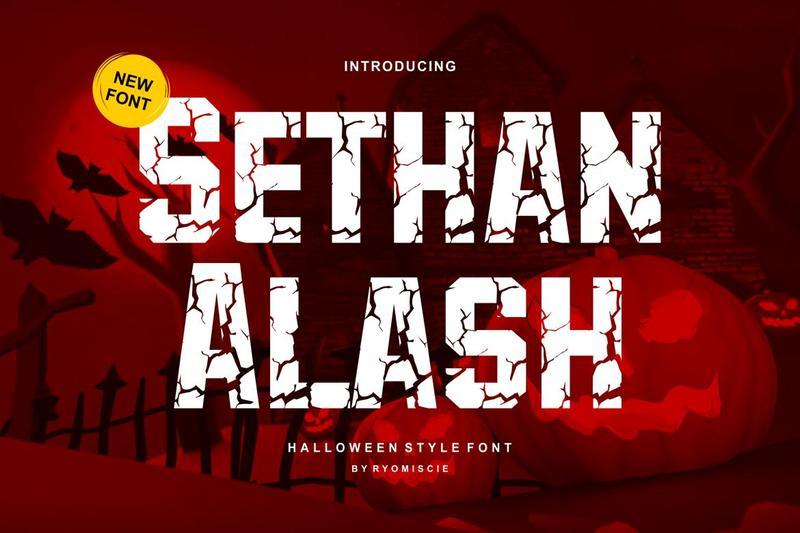
Sethan Alash – Halloween Style Font F4UJVC2
Introducing our new product **Sethan Alash** – Halloween Style Font
**Sethan Alash** – Halloween Style Font is a regular and authentic display font. The font is suitable for any branding project like logo, esport, and many more. outstanding in a wide range of contexts.